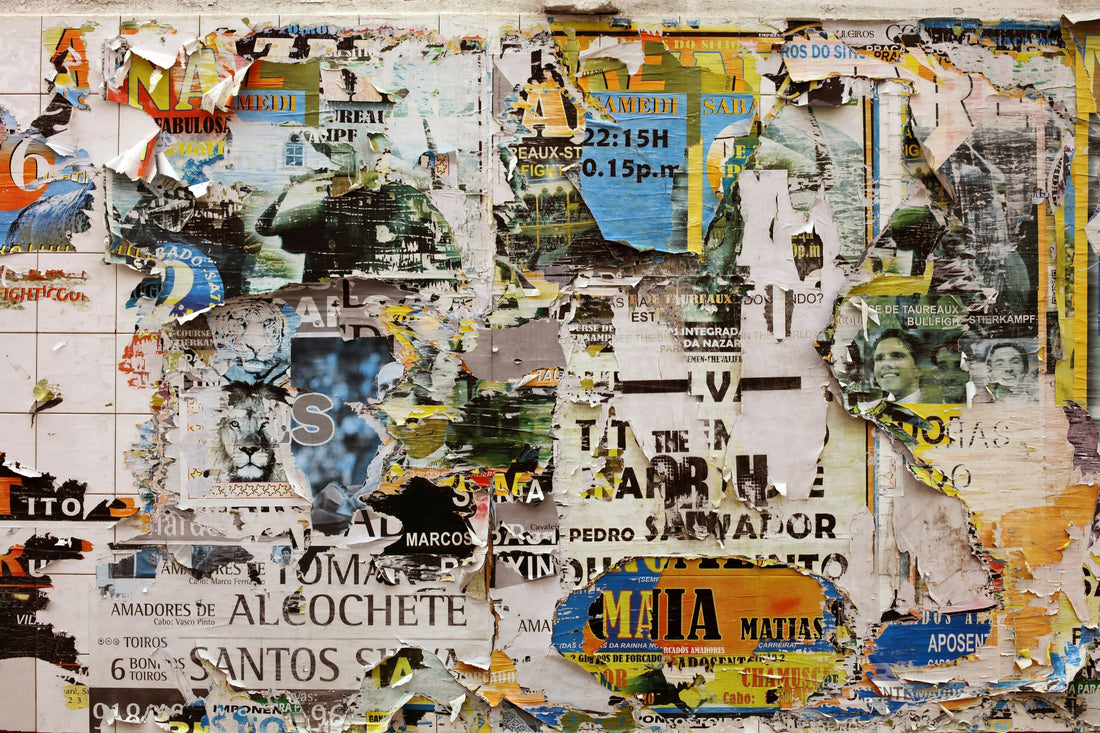
Typography is everywhere. From books to billboards, from ancient manuscripts to digital screens, it plays an essential role in how we interact with the world. More than just the selection of fonts, typography is the art and science of arranging letters to make the written word readable, legible, and aesthetically pleasing. But where did it come from, how has it evolved, and what role does it play today?
The Origins of Typography: From Manuscripts to Movable Type
Before typography as we know it, the written word was painstakingly handwritten by scribes. In the Middle Ages, monks in scriptoriums devoted their lives to copying sacred texts with intricate calligraphy, laying the groundwork for future typographic advancements.
Typography as an art form began with the invention of movable type by Johannes Gutenberg in the 15th century. His printing press revolutionized the way information was disseminated, allowing for mass production of books and written materials. The first typefaces were inspired by Blackletter, a script that mimicked the monks’ handwriting. Over time, new styles such as Roman and Italic emerged, making texts more readable and elegant.
Key Movements and Innovations
Typography evolved alongside artistic and technological advancements. Each era left its mark:
The Renaissance (15th – 16th Century): Type designers like Claude Garamond refined Roman letterforms, creating some of the first fonts that are still in use today.
The Industrial Revolution (18th – 19th Century): The rise of advertising and mass production led to bold, decorative typefaces (think of the ornate posters of the time).
The Modernist Era (20th Century): Designers like Jan Tschichold and Herb Lubalin embraced minimalism, clarity, and functionality, leading to widely used fonts like Helvetica and Futura.
The Digital Age (21st Century): Typography exploded with web fonts, responsive design, and an infinite variety of digital typefaces, shaping how we read and interact online.
Typography Today: A Fusion of Art and Function
In the modern world, typography is more than just a design choice — it influences how we perceive brands, messages, and even emotions. Consider its various applications:
Branding & Advertising: Companies carefully select fonts that convey their identity (e.g., the timeless elegance of Vogue’s Didot font or the friendliness of Google’s custom sans–serif).
Editorial Design: Newspapers and magazines use typography to guide the reader’s eye through headlines, body text, and captions.
Web & UI Design: With accessibility in mind, digital typography ensures text remains legible across different devices and screen sizes.
Artistic & Expressive Use: Designers push the boundaries of typography, blending letters with illustration and motion graphics.
Typography as a Meditative Practice
Beyond its functional role, typography can be a mindful, almost spiritual craft. Just as monks once meticulously transcribed texts, modern designers find tranquility in kerning, spacing, and refining letterforms. The precise alignment of text, the balance between letters, and the rhythm of a typeface all require patience and an eye for harmony.
"Typography is the craft of endowing human language with a durable visual form." – Robert Bringhurst
In a world where we are constantly bombarded with text, paying attention to typography allows us to slow down and appreciate the artistry behind the written word. Whether designing a book, curating a website, or simply admiring a well-set page, typography connects us to history while shaping our present.